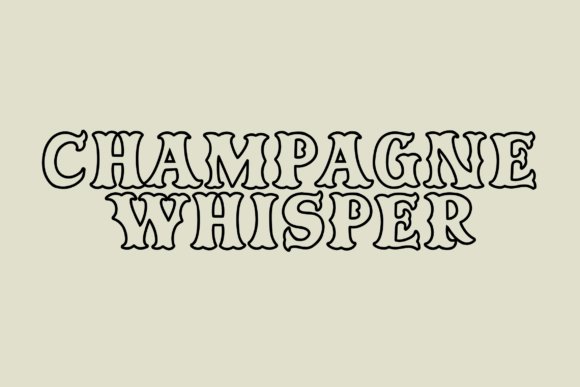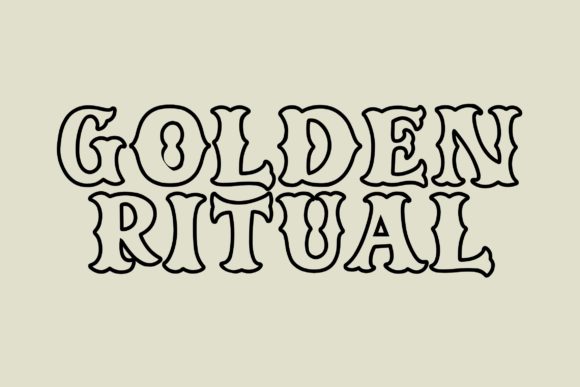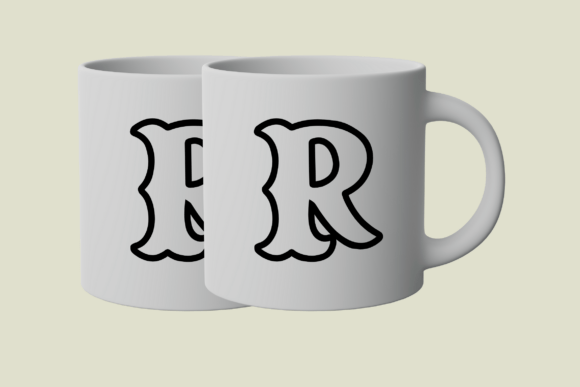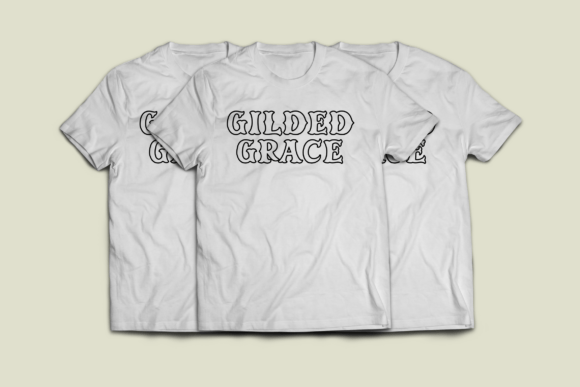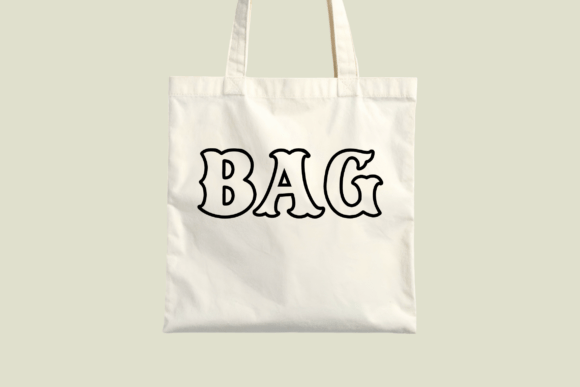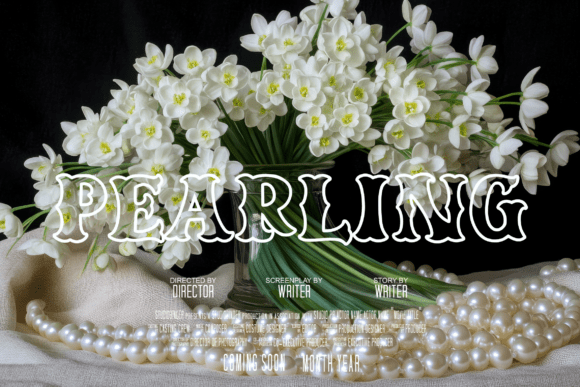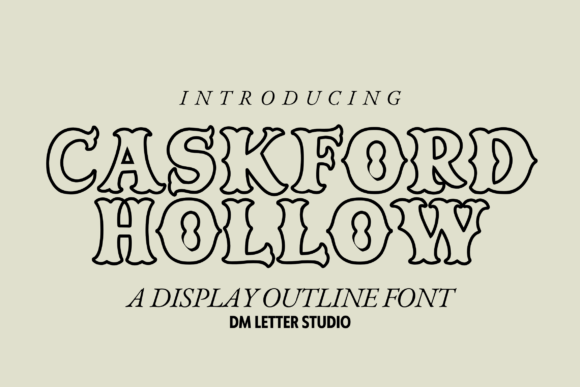
Meet Caskford Hollow, the Hollow Western Font
Are you looking for a font that can add a touch of classic western charm to your designs? Look no further than Caskford Hollow, a vintage old western font with a hollow outline style that’s sure to make your designs stand out. In this article, we’ll take a closer look at Caskford Hollow and explore its features, benefits, and uses.
A Bold yet Lightweight Font
Caskford Hollow is a unique font that combines the boldness of a western font with the lightness of a hollow outline style. Inspired by classic saloon signs and hand-painted frontier lettering, this font brings a strong retro character to your designs without feeling heavy or overpowering. The hollow structure of the font stays clean and balanced, making it perfect for both large headlines and detailed designs.
Versatile and Easy to Use
One of the best things about Caskford Hollow is its versatility. This font can be used for a wide range of design projects, including logos, posters, packaging, signage, apparel, and rustic branding. Whether you’re a designer, crafter, or DIY enthusiast, Caskford Hollow is a great addition to your font collection.
Perfect for Various Printing Techniques
The outlined letterforms of Caskford Hollow cut and print cleanly, making it perfect for various printing techniques like vinyl, laser, stickers, and screen printing. This font is designed to help you achieve professional-looking results with ease.
Streamline Your Design Process
Caskford Hollow is designed to help you work more efficiently. The consistent and easy-to-align shapes make it easy to lay out your designs, saving you time and effort. Plus, the hollow style adds instant depth and flexibility, making it perfect for layered colors and textured backgrounds.
So, what are the benefits of using Caskford Hollow for designers and crafters? Here are just a few:
- Unique and eye-catching designs: Caskford Hollow adds a touch of classic western charm to your designs, making them stand out from the crowd.
- Versatile: Caskford Hollow can be used for a wide range of design projects, from logos and posters to packaging and apparel.
- Perfect for printing: The outlined letterforms cut and print cleanly, making it perfect for various printing techniques.
Get Creative with Caskford Hollow
Now that you’ve learned more about Caskford Hollow, it’s time to get creative! Here are some ideas to get you started:
- Create a vintage-style poster: Use Caskford Hollow to create a poster that looks like it’s straight out of the wild west.
- Design a logo for your business: Add a touch of western charm to your business logo with Caskford Hollow.
- Make custom apparel: Use Caskford Hollow to create custom t-shirts, hats, and other apparel with a unique western flair.
- Create a rustic brand identity: Use Caskford Hollow to create a brand identity that reflects your love of the great outdoors.
Caskford Hollow is a unique and versatile font that’s perfect for designers and crafters looking to add a touch of classic western charm to their designs. With its bold yet lightweight design, seamless integration with popular design apps, and perfect printing capabilities, Caskford Hollow is a great addition to any font collection. So why wait? Get creative with Caskford Hollow today and start making stunning designs that stand out from the crowd!